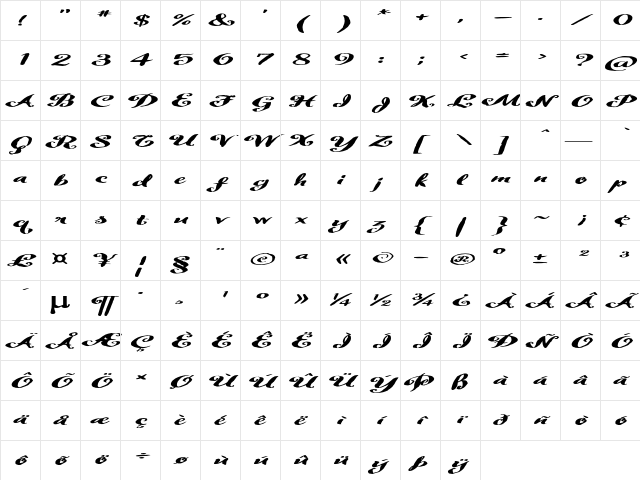
Blackheart Expanded Bold
Style: Expanded Bold
Blackheart Family
Blackheart Expanded Bold
Design Context for Blackheart
Blackheart is a composed and adaptable typeface that performs quietly and consistently across a wide range of design contexts. Its bold stroke weight gives it real presence on the page.